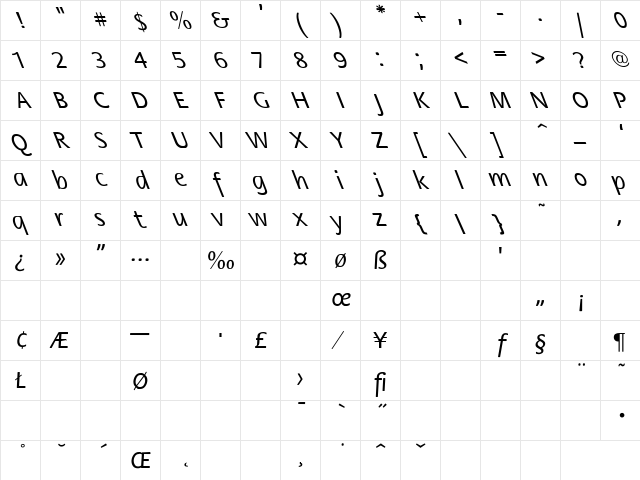
Complete Flora-Normal Lefty Regular glyph index. Displaying only characters natively supported by Flora-Normal Lefty Regular font.
Flora-Normal Lefty is a composed and adaptable typeface that performs quietly and consistently across a wide range of design contexts.